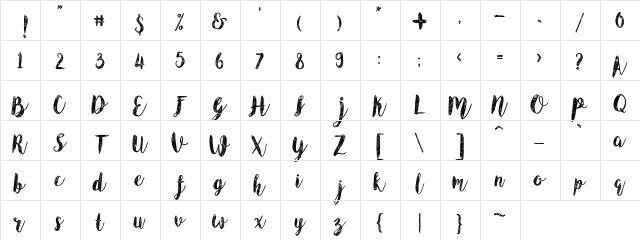
Angeline Vintage Angeline Vintage
Design Context for Angeline Vintage Typeface
Angeline Vintage wears its vintage influences proudly, with letterforms that recall mid-century signage, classic packaging, and nostalgia-driven design.
Font Pairing: Combine Angeline Vintage with a simple slab or neutral sans — period-accurate companions reinforce the vintage feel without competing for attention.
Pro Tip: Use Angeline Vintage for headlines and pull quotes rather than body copy — its personality is best appreciated in short, focused bursts.